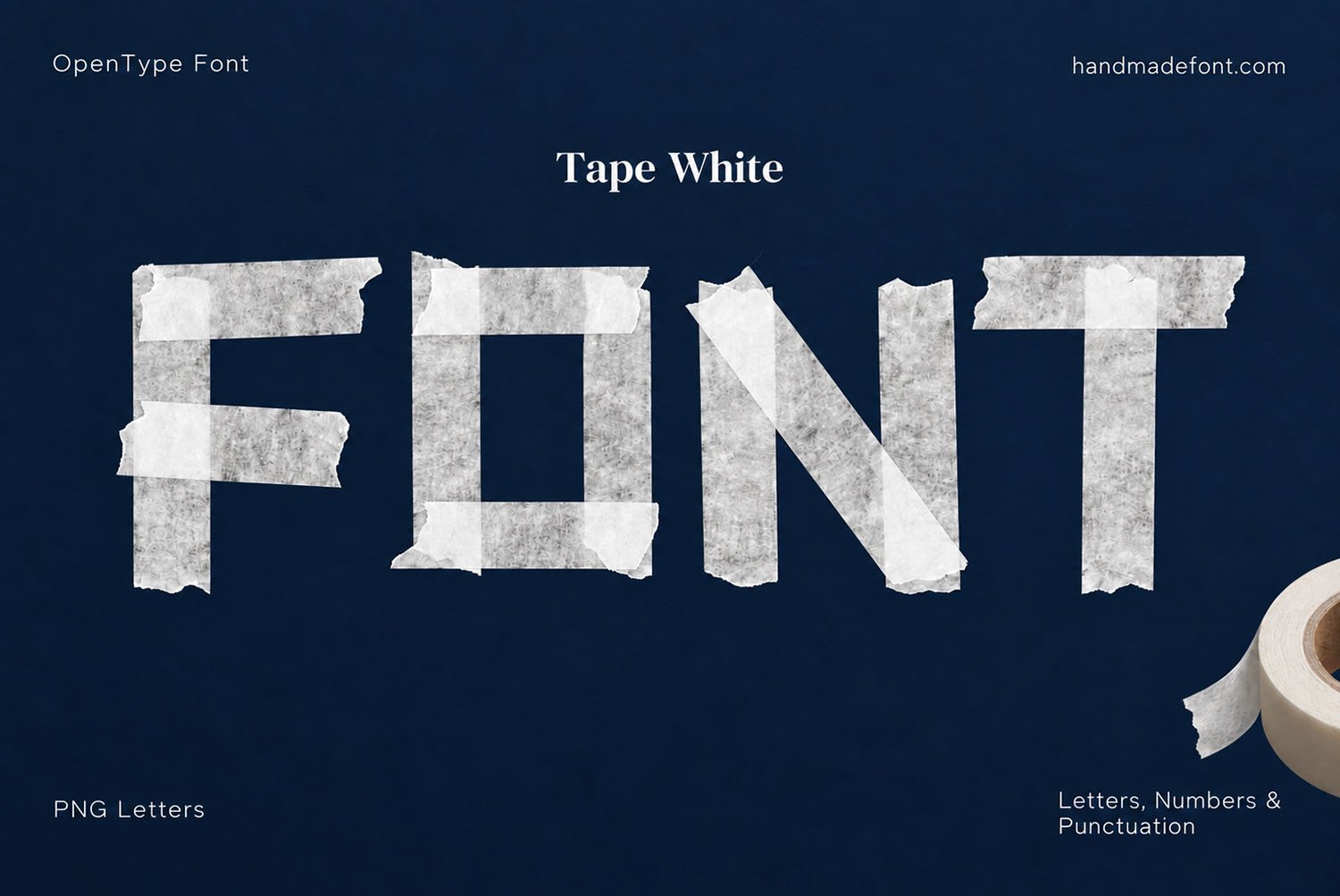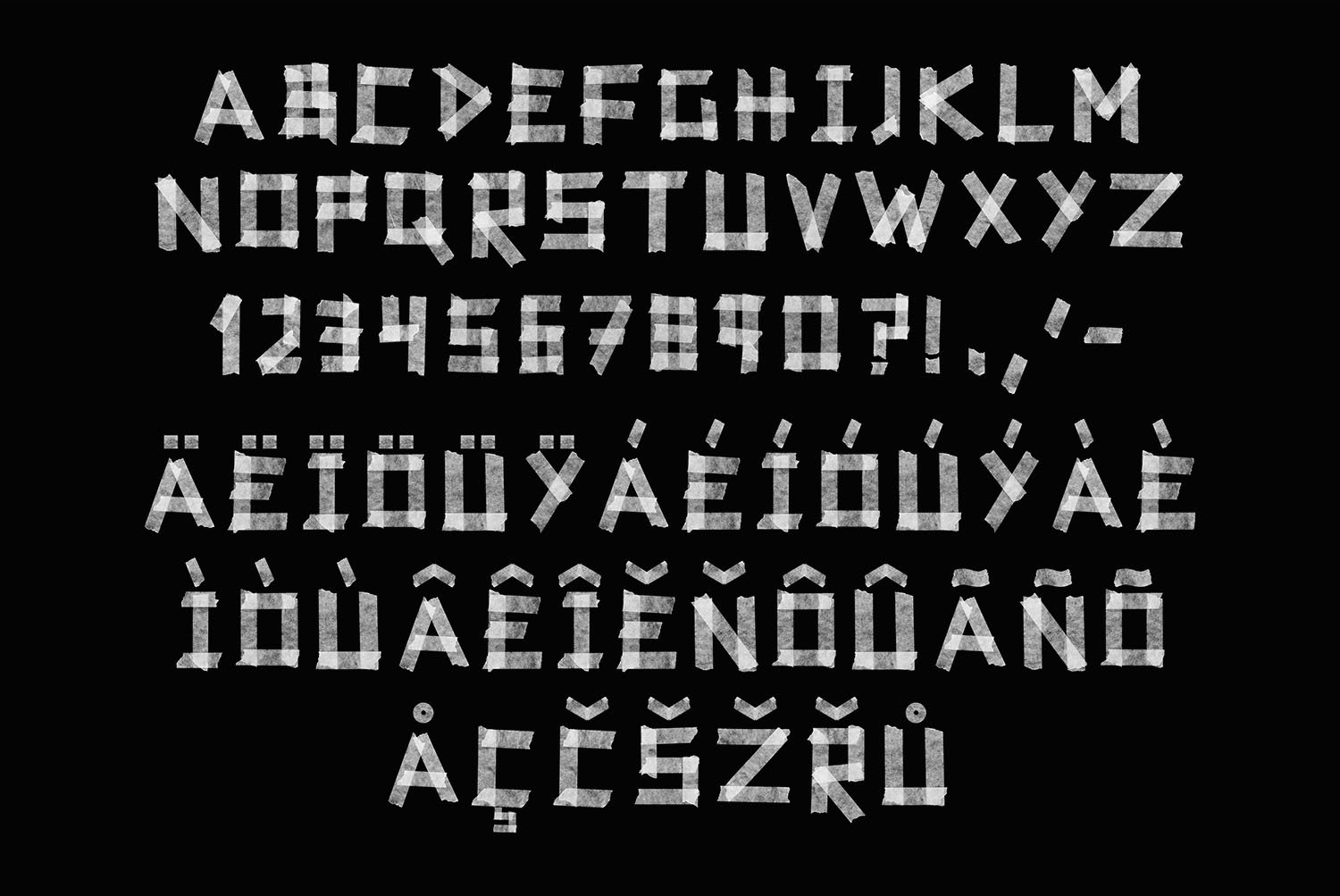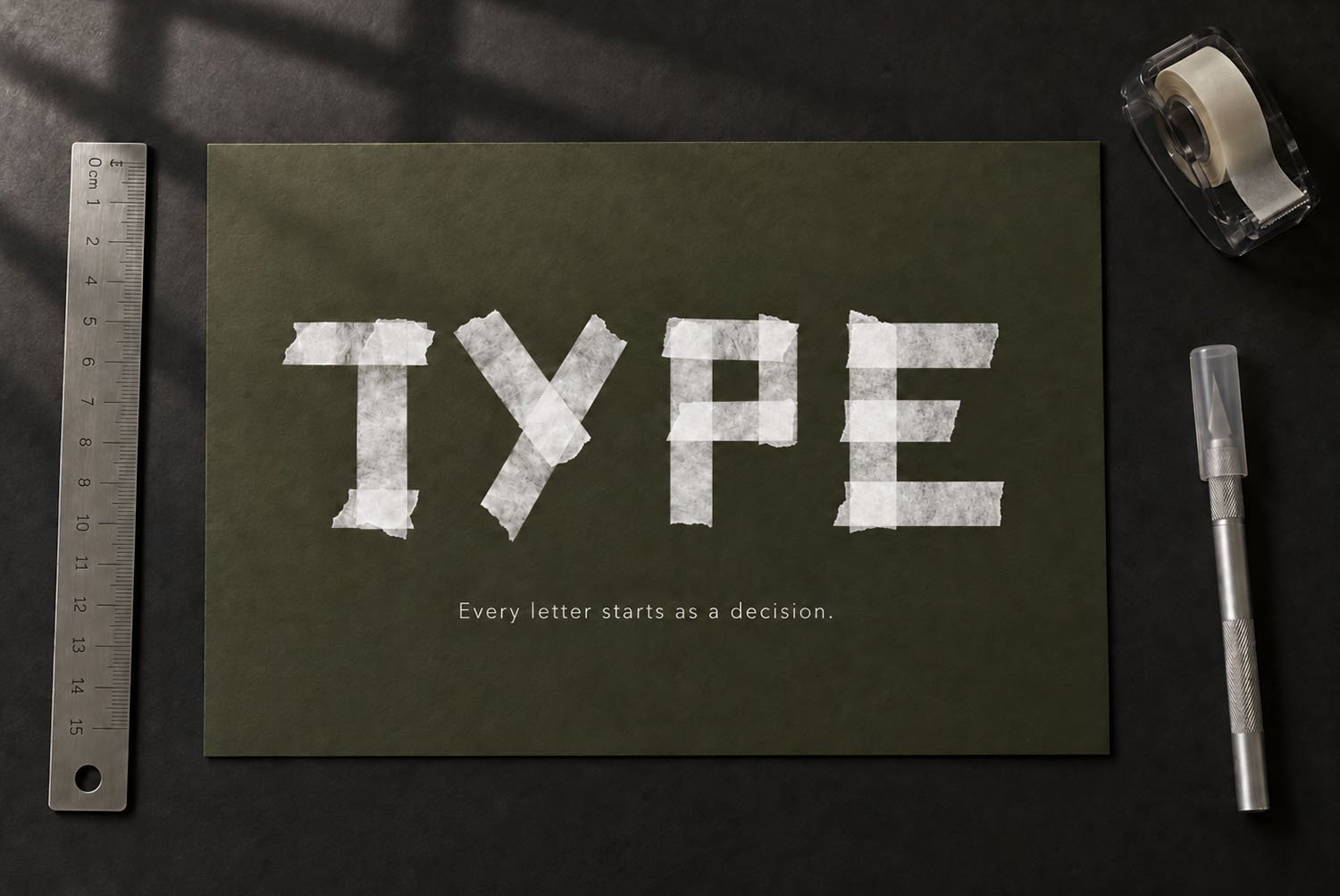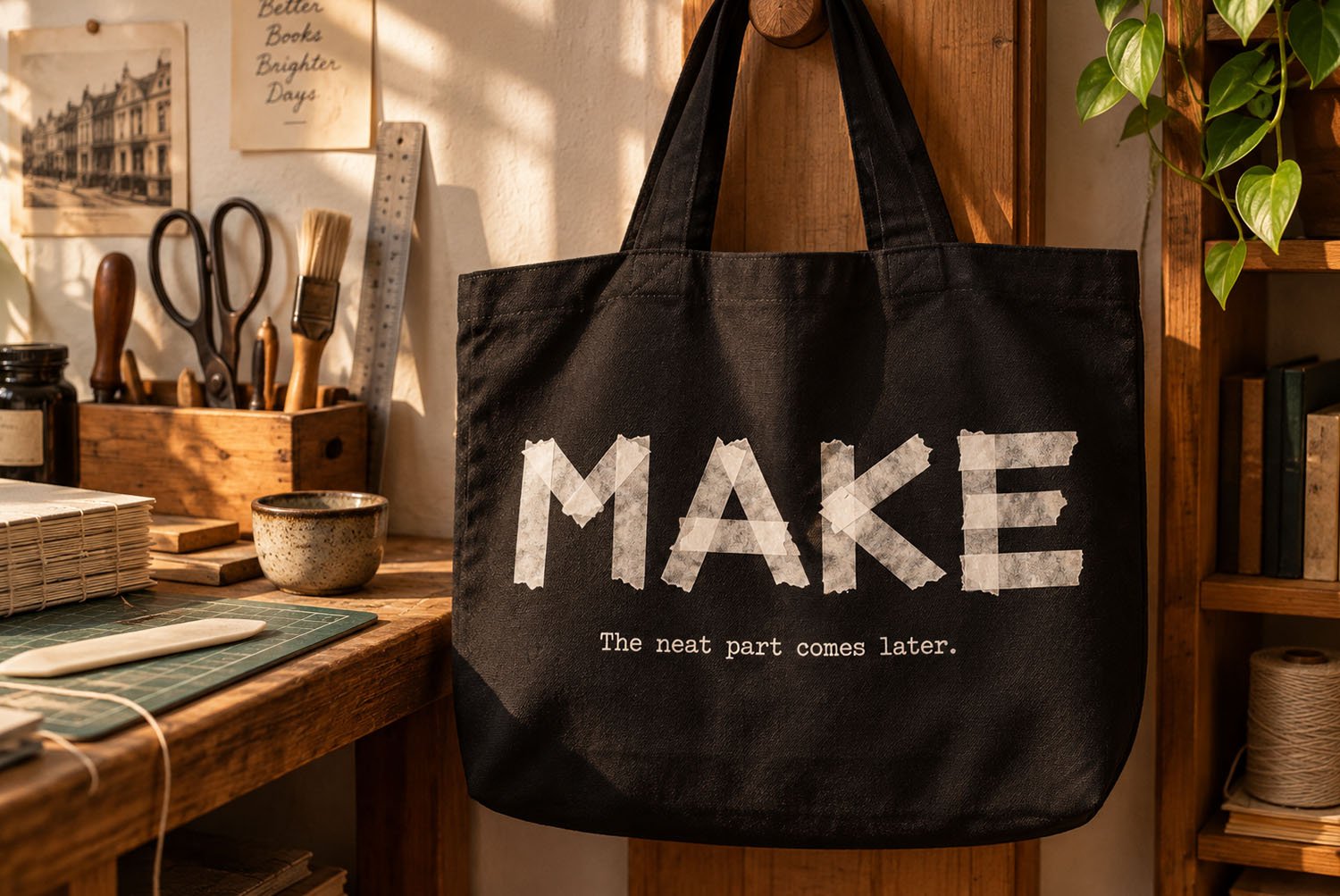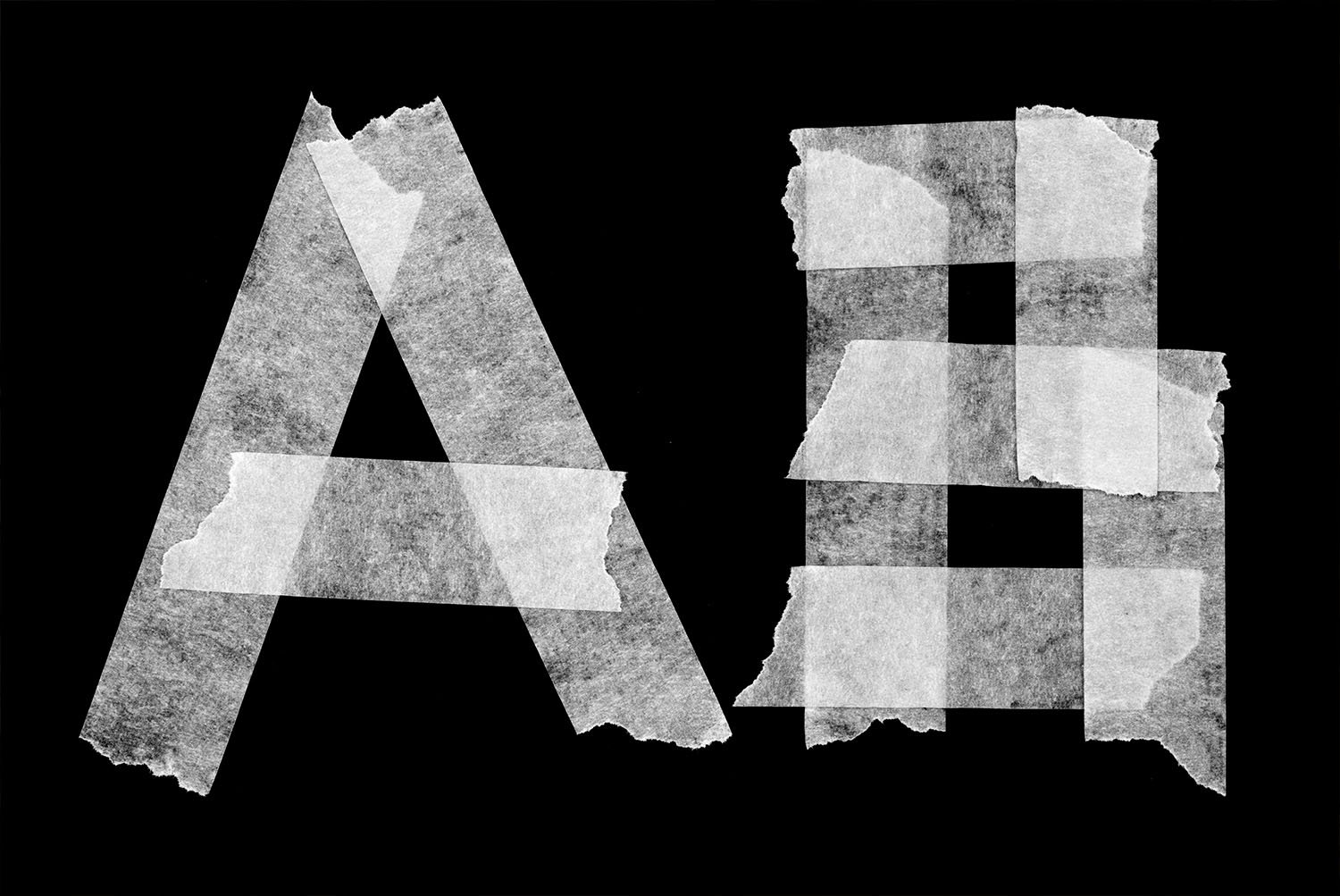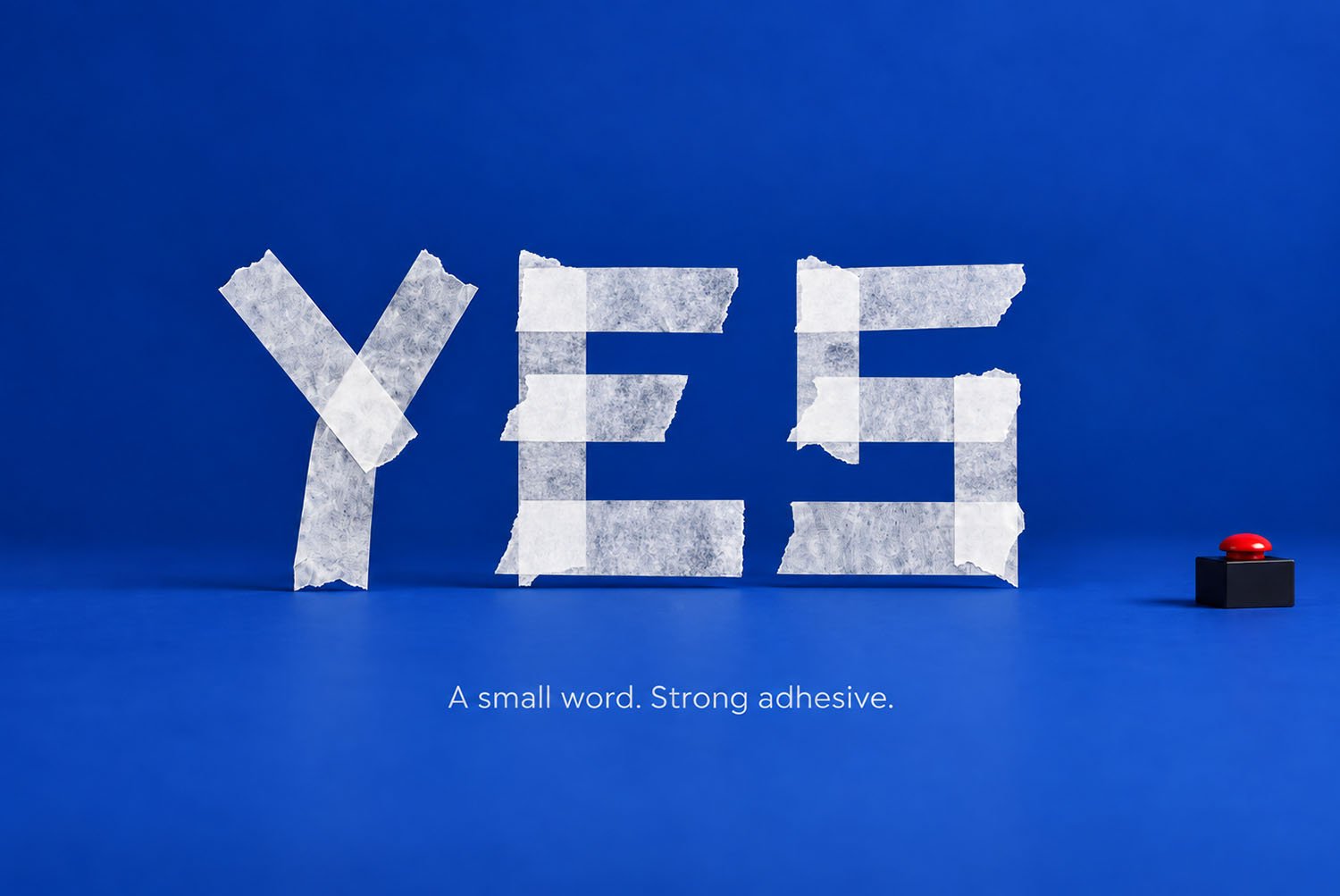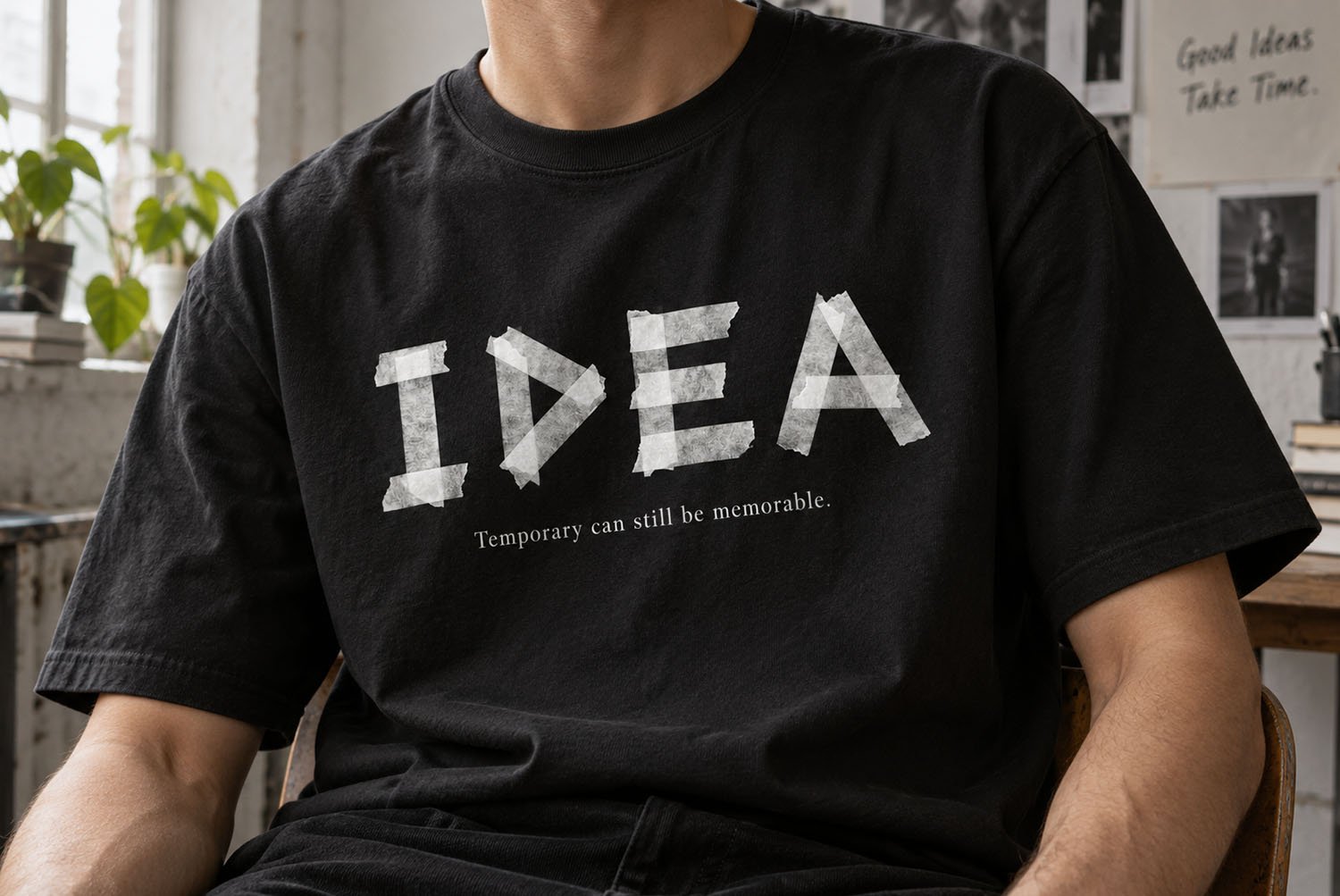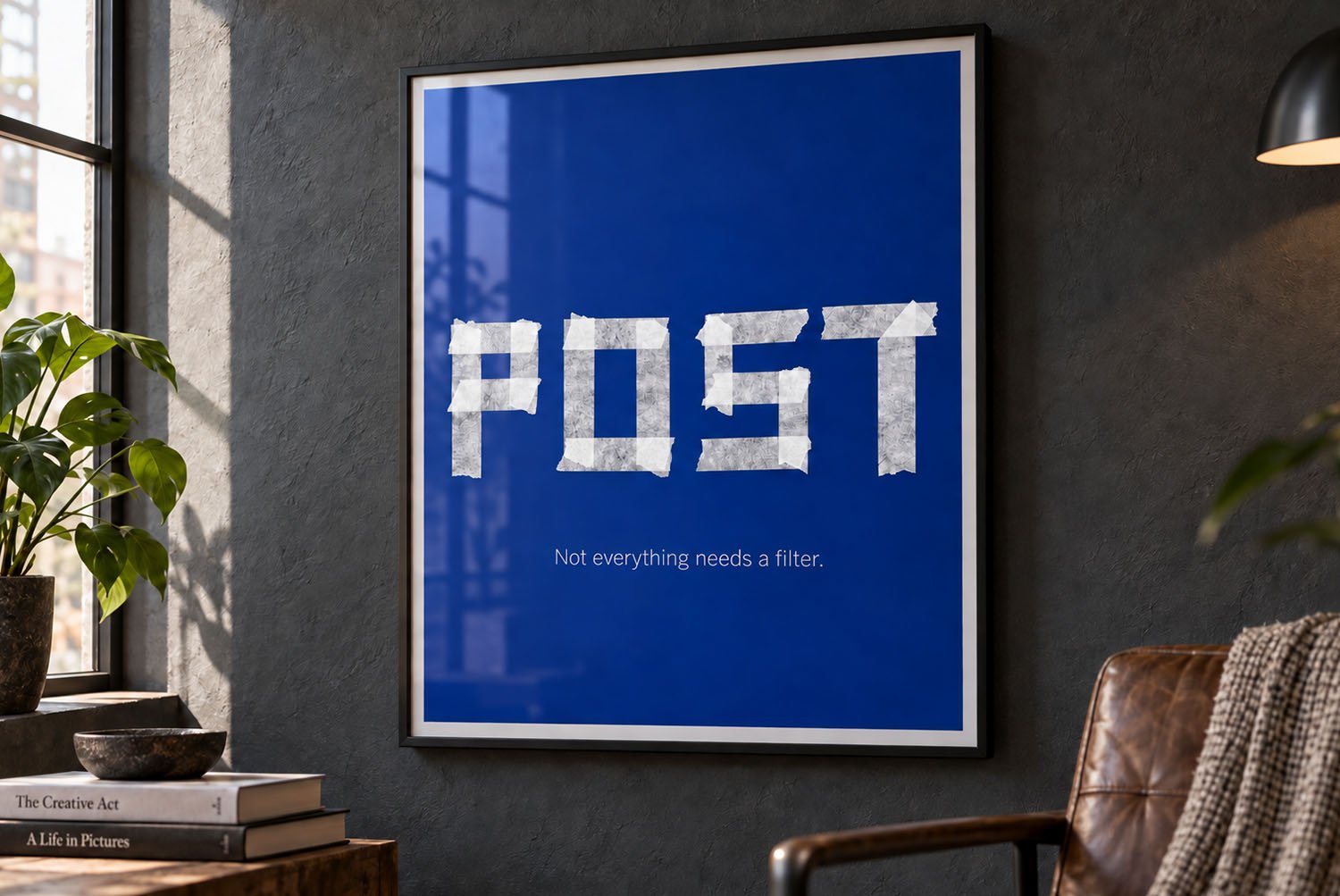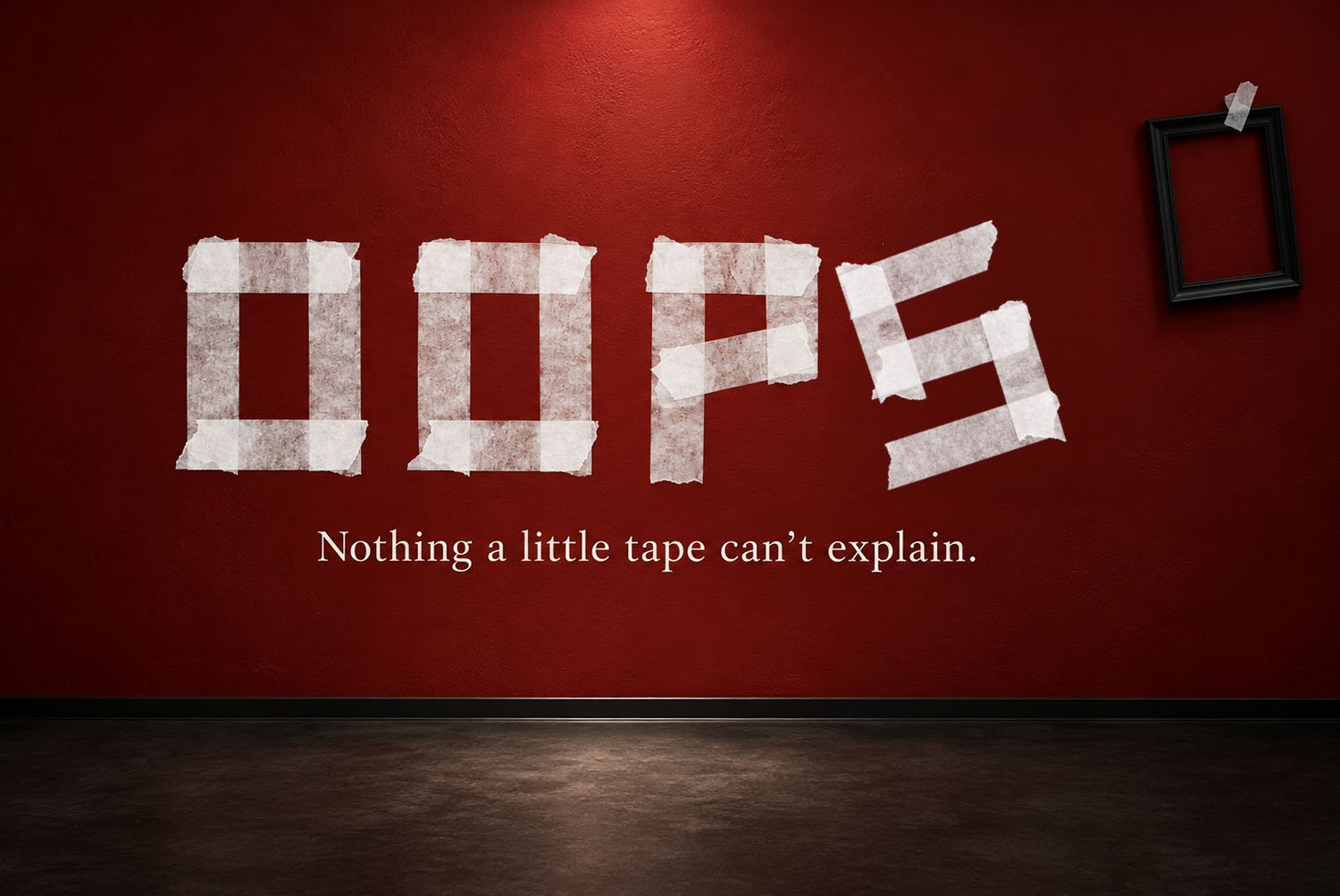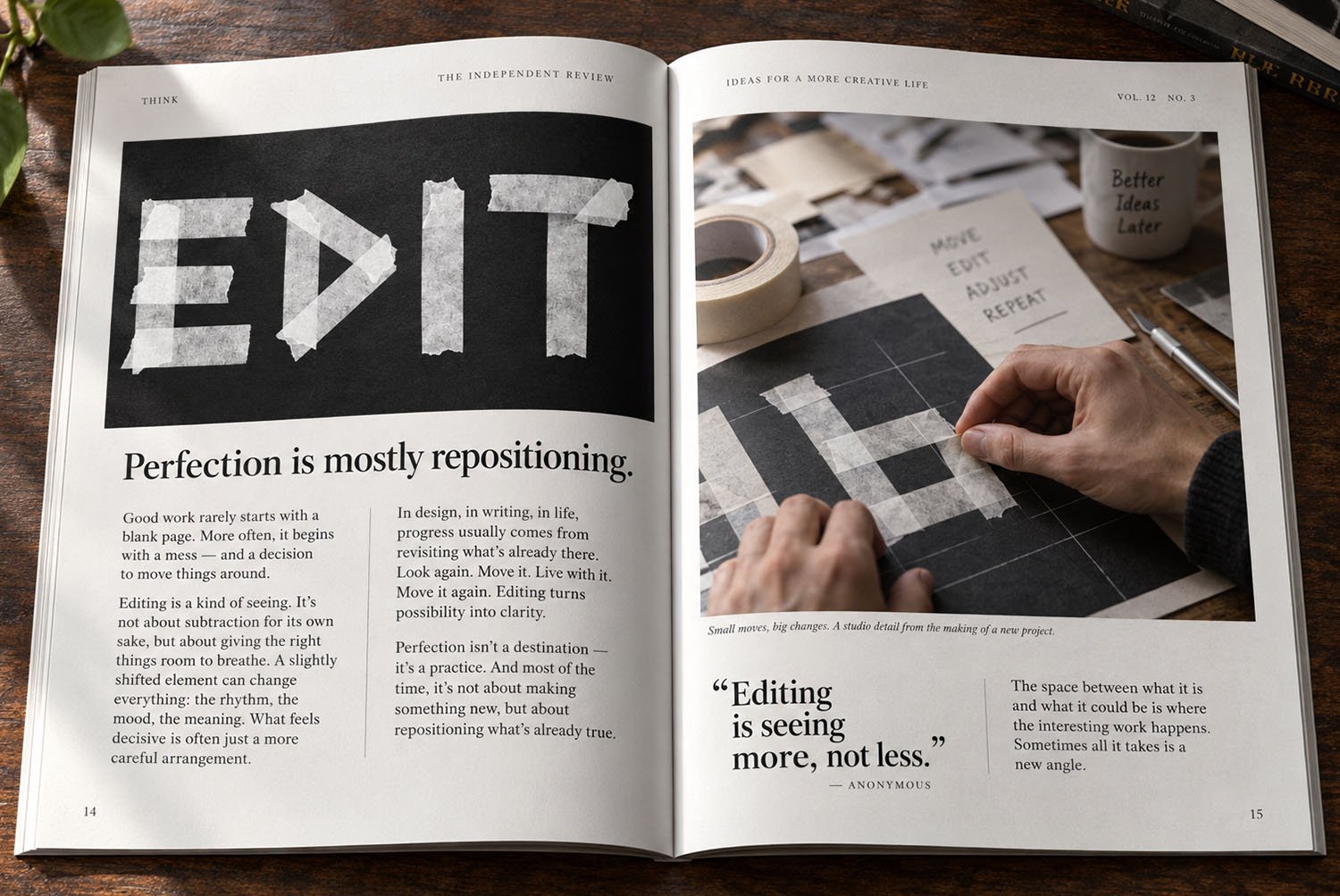
Tape White Font
Tape White Font transforms ordinary masking tape into expressive handmade lettering. Each character is formed from torn white strips, overlapping layers, rough edges, visible fibers, and natural irregularities. This tactile style creates a clean yet playful visual language for posters, editorial designs, branding, packaging, social media graphics, craft projects, and experimental compositions. The font includes an OTF file for digital use, plus individual PNG letters on transparent backgrounds for flexible image-based layouts. Combine complete words or isolated characters to create distinctive messages with a minimal, personal, and unmistakably handmade appearance.
Letters : A B C D E F G H I J K L M N O P Q R S T U V W X Y Z Á Â Ä À Å Ã Č Ç É Ě Ê Ë È Í Î Ï Ì Ň Ñ Ó Ô Ö Ò Õ Ř Š Ú Û Ü Ù Ů Ý Ÿ Ž
Others : ! ? , . ' - ´ ` ˆ ˜ ¨ ˇ ˚ ¸